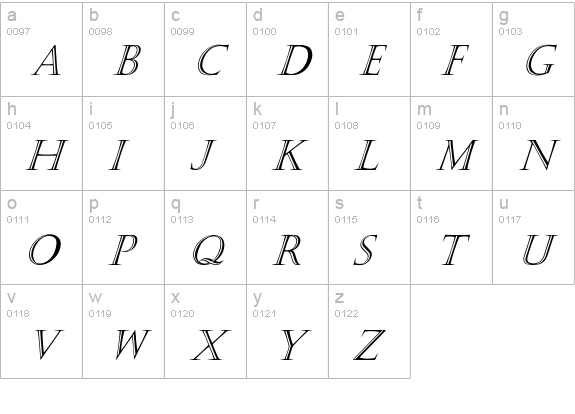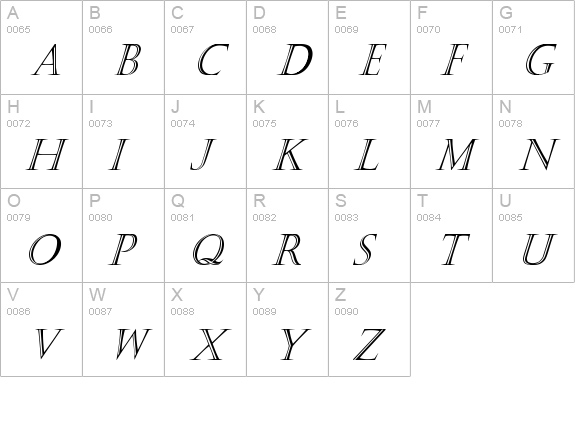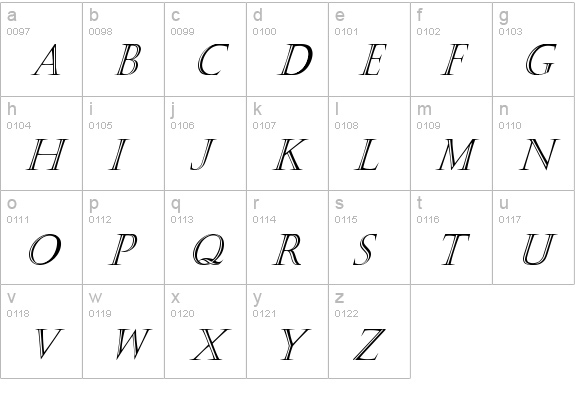
Kastellar-Itali Font Details
Introducing Kastellar-Itali, a stunning and elegant font that effortlessly blends classic and contemporary design elements. With its timeless appeal and graceful curves, this font is the perfect choice for adding a touch of sophistication to any project. Kastellar-Itali exudes a sense of refinement and versatility, making it suitable for a wide range of creative endeavors. Whether you're designing a logo, crafting a wedding invitation, or creating eye-catching headlines, this font will captivate your audience and leave a lasting impression. One of the most remarkable aspects of Kastellar-Itali is that it is free. That's right, you can download this exceptional font at no cost from FontsMarket.com. This generous offer allows designers, artists, and enthusiasts alike to access this premium-quality font without any financial barriers. Indulge in the beauty of Kastellar-Itali's intricate details and exquisite letterforms. Its flowing strokes and delicate serifs add a sense of sophistication to every character, resulting in a harmonious balance between elegance and readability. The versatility of Kastellar-Itali is further enhanced by its extensive character set, which includes uppercase and lowercase letters, numerals, punctuation marks, and a wide range of special characters. This comprehensive collection ensures that you have all the tools necessary to create visually stunning and engaging designs. Whether you're aiming for a classic, vintage-inspired look or a contemporary and minimalist aesthetic, Kastellar-Itali delivers on all fronts. Its timeless appeal and adaptability make it a go-to choice for designers seeking a font that can effortlessly elevate their creations. So why wait? Embrace the beauty of Kastellar-Itali and unlock endless creative possibilities. Download this exceptional font for free at FontsMarket.com and let your designs shine with elegance and sophistication.